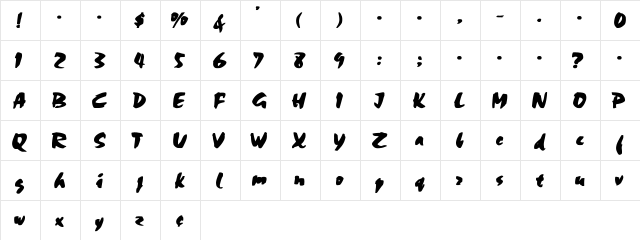
CSD-Chalk-Normal Bold Bold Font Preview
CSD-Chalk-Normal Bold Bold
Design Context for CSD-Chalk-Normal Bold Typeface
CSD-Chalk-Normal Bold is a composed and adaptable typeface that performs quietly and consistently across a wide range of design contexts. Its bold stroke weight gives it real presence on the page.